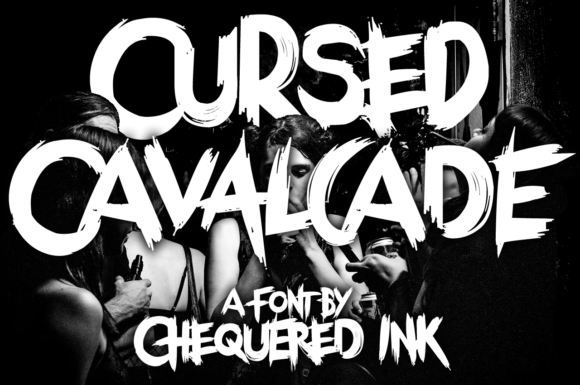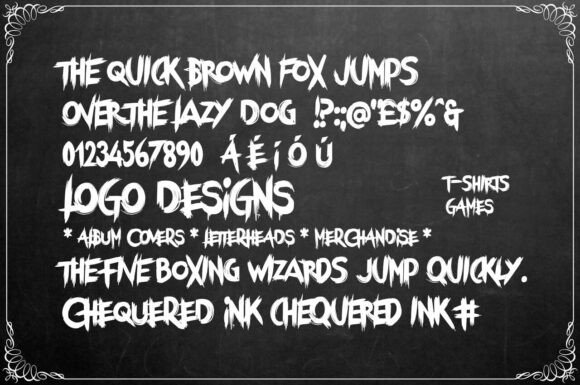
Unleash Your Creativity with the Cursed Cavalcade Font
There’s nothing quite like the thrill of a blank canvas, a blank page, or a blank screen staring back at you, waiting to be transformed into something amazing. It’s that moment of pure creative freedom, where anything is possible and the only limit is your imagination.
For designers, this feeling is a familiar one, and it’s exactly what inspired the creation of the Cursed Cavalcade Font – a unique and captivating typeface designed to give your brand that extra wow factor. Whether you’re crafting a logo, designing a website, or creating an album cover, this font will transport your audience to a world of hand-crafted elegance and sophistication.
Cursed Cavalcade Font Key Features
- Character Set: This font features a unique, hand-drawn design with a vast character set, including uppercase and lowercase letters, numerals, punctuation, and special characters.
- Unique Characteristics: The Cursed Cavalcade Font boasts a distinctive, eerie aesthetic, with intricate details and subtle texture, perfect for adding a touch of mystery and sophistication to your designs.
Cursed Cavalcade Font Review
Overall, I found the Cursed Cavalcade Font to be a unique and intriguing choice for any design project. Here’s my honest review:
- ✨ The font’s bold, whimsical style is perfect for creating a sense of playfulness and wonder.
- ✨ The font’s high contrast between thick and thin lines adds visual interest and makes it perfect for titles and headings.
- ✨ The font’s vintage feel makes it a great choice for designs that need a touch of nostalgia and charm.
- ⚠️ The font may be too ornate for designs that require a clean and minimalist look.
- ⚠️ The font’s bold style can make it difficult to read at smaller sizes, so it’s best used for larger headings and titles.
- ⚠️ The font’s unique style may not be suitable for corporate or professional designs, where a more conservative approach is often preferred.
The Cursed Cavalcade Font is a great choice for designers who want to add a touch of whimsy and personality to their designs. While it may not be suitable for every project, it’s a great option for designers who want to create something truly unique and eye-catching.
Cursed Cavalcade Font: A Practical Application Guide
The Cursed Cavalcade Font is ideal for:
- Spooky-themed designs, such as Halloween invitations or haunted house posters
- Mystical or occult-themed designs, such as tarot card readings or astrology charts
- Dark fantasy or horror-themed designs, such as book covers or video game art
Q: Does the Cursed Cavalcade Font include any special features or effects?
Yes, the Cursed Cavalcade Font includes a range of special features, including ligatures, swashes, and alternate characters. These can be accessed using the font’s built-in glyph palette or by using OpenType features in your design software.